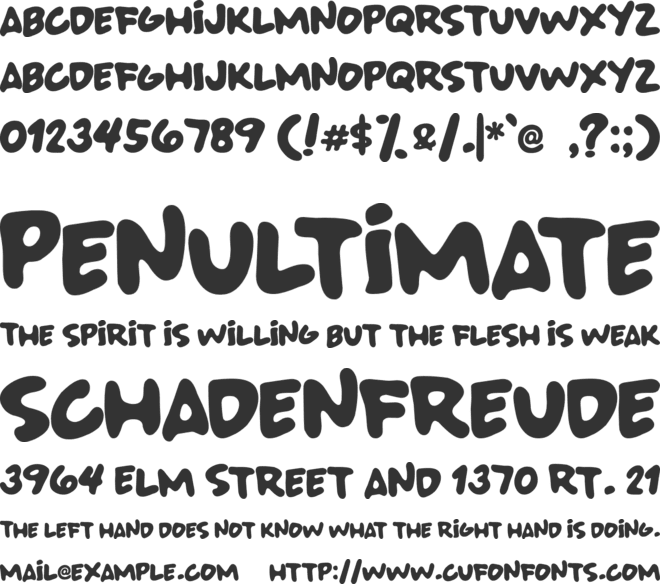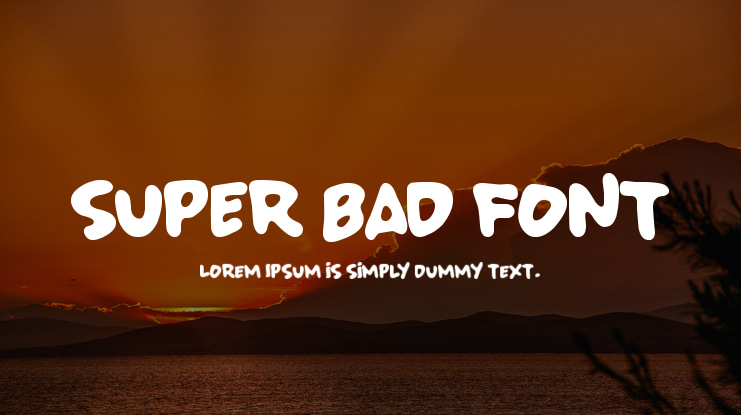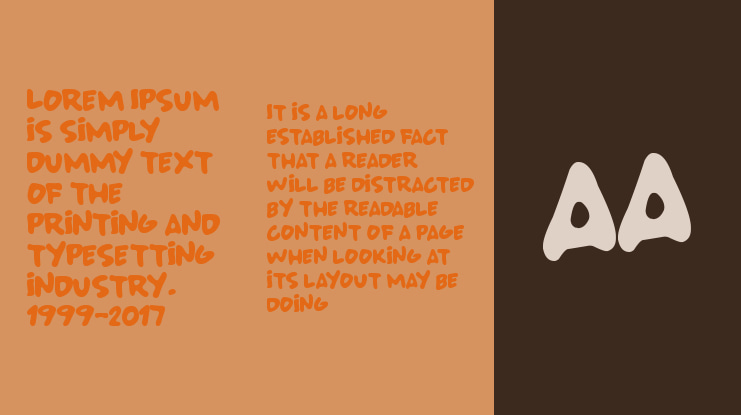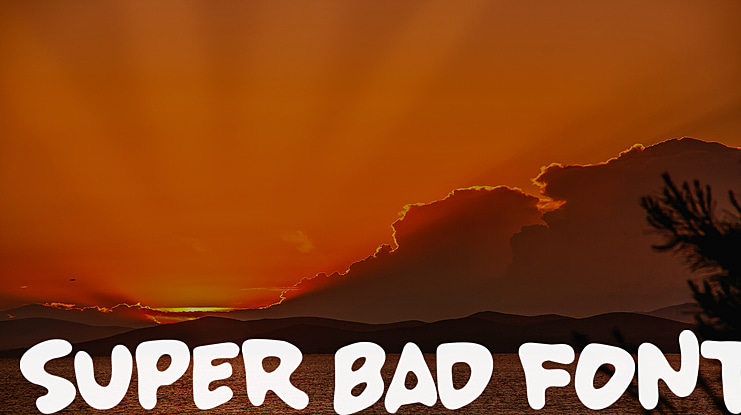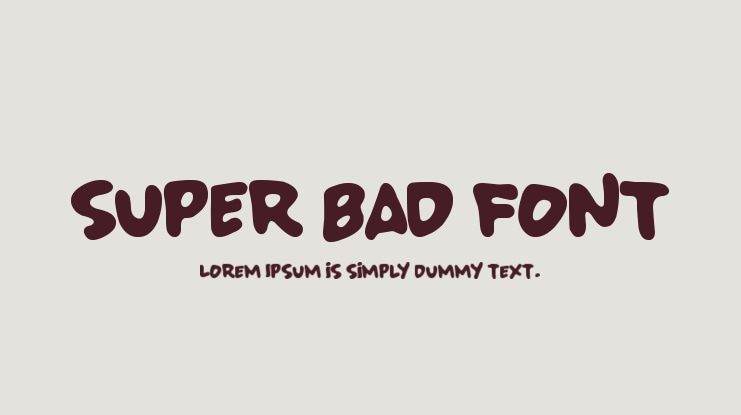
SUPER BAD FONT
Just another SUPER BAD FONT has come! Enjoy using this font on your everyday memes. Free for personal use. Purchase it here: https://creativemarket.com/EliShoreProductions